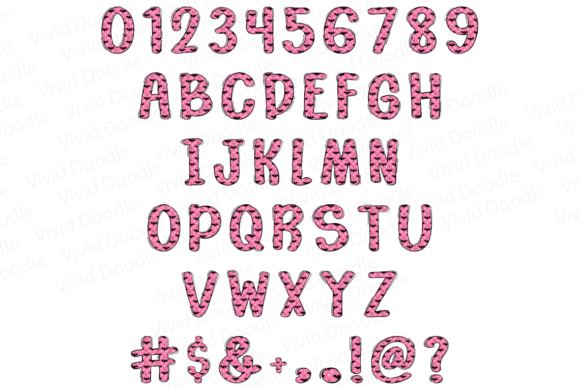
Fancy Pumpkin Halloween Font
Fancy Pumpkin Halloween Font – a delightful handwritten typeface perfect for adding a whimsical touch to your Halloween-themed projects. This font captures the festive and playful spirit of the season, making it ideal for school activities, holiday posters, creative art, and graphic design. Whether you’re crafting invitations, classroom décor, or seasonal artwork, the Fancy Pumpkin Halloween Font will bring a charming, fun, and spooky vibe to your designs. Embrace the magic of Halloween and make your projects stand out with this festive font!